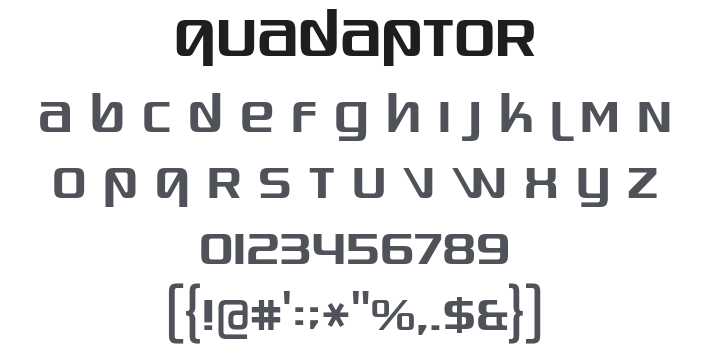
Quadaptor Font
About Quadaptor
Quadaptor is a robot-like retro techno display typeface inspired by the 1970s Dynaco audio equipment logo — its squarish, crisp letterforms carry a clean geometric precision that balances vintage hi-fi coolness with sci-fi authority. Smart OpenType features automatically flip V and W shapes when appropriate, with ligatures for letter pairs like LT, TJ, and LL. Perfect for tech branding, sci-fi titles, audio equipment aesthetics, and industrial design headlines.